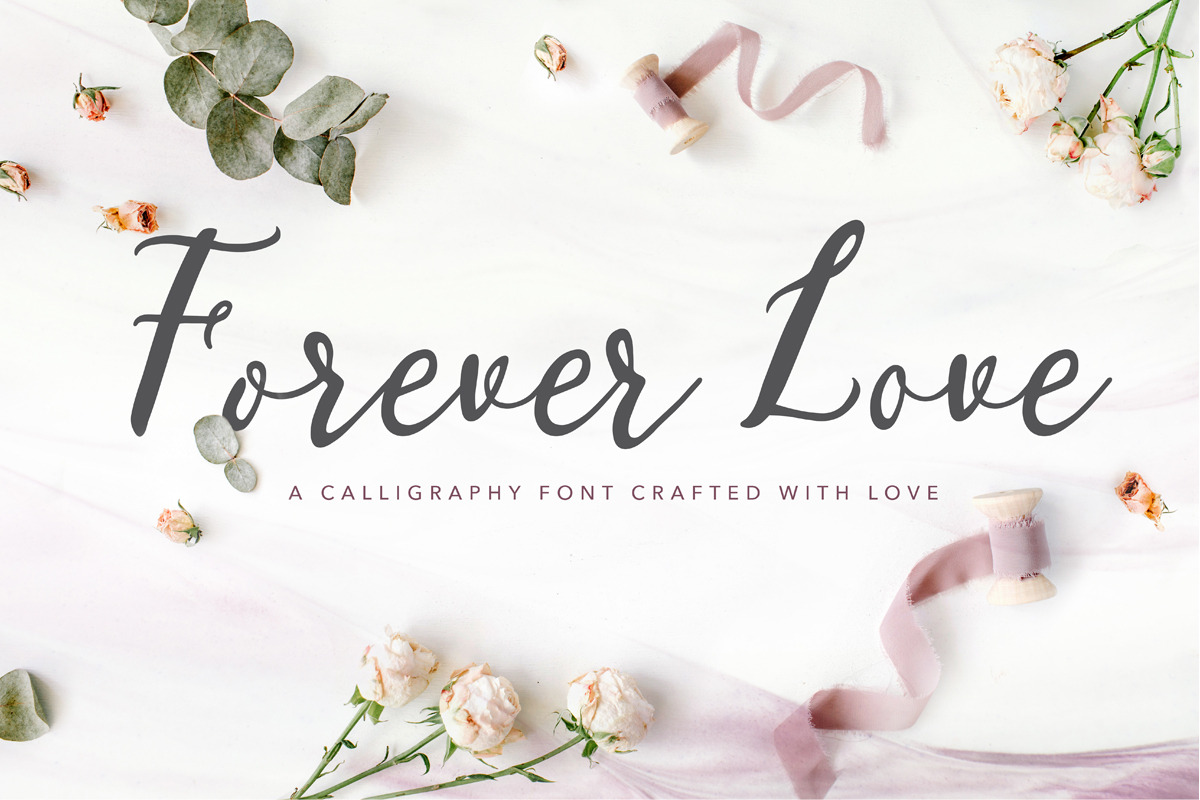
Forever Love: A Calligraphy Font
Introducing Forever Love, A Calligraphy Font Crafted with Love
Forever Love is designed to be a sweet stylish script font. The font has beautiful and unique characters for your invitations, greeting cards, logo designs, book covers, branding, merchandise and social media posts.
Forever Love contains over 55 unique standard and stylistic ligatures. Simply access them through the Glyphs palettes (in Illustrator or InDesign). Multilingual support is also included for Western European Language.